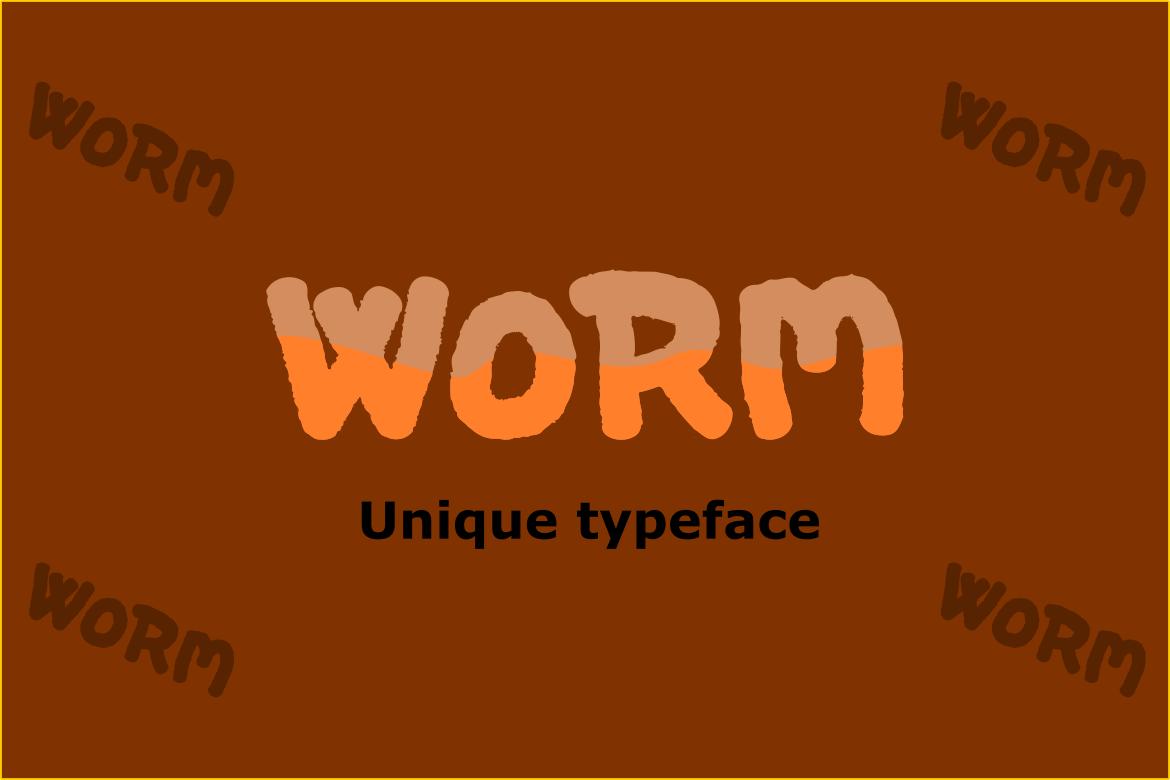
Worm Font Description
Worm is a fun display font, carefully handcrafted to become a true favorite. Its casual charm makes it appear wonderfully down-to-earth, readable and, ultimately, incredibly versatile. Worm will look outstanding in any context, whether it’s being used on busy backgrounds or as a standalone headline!